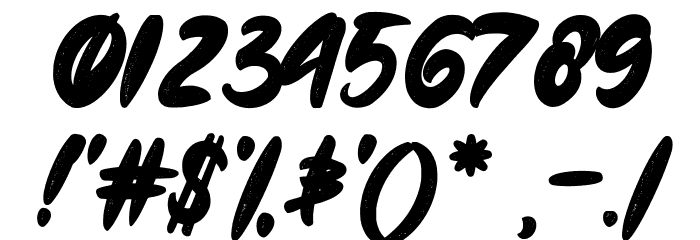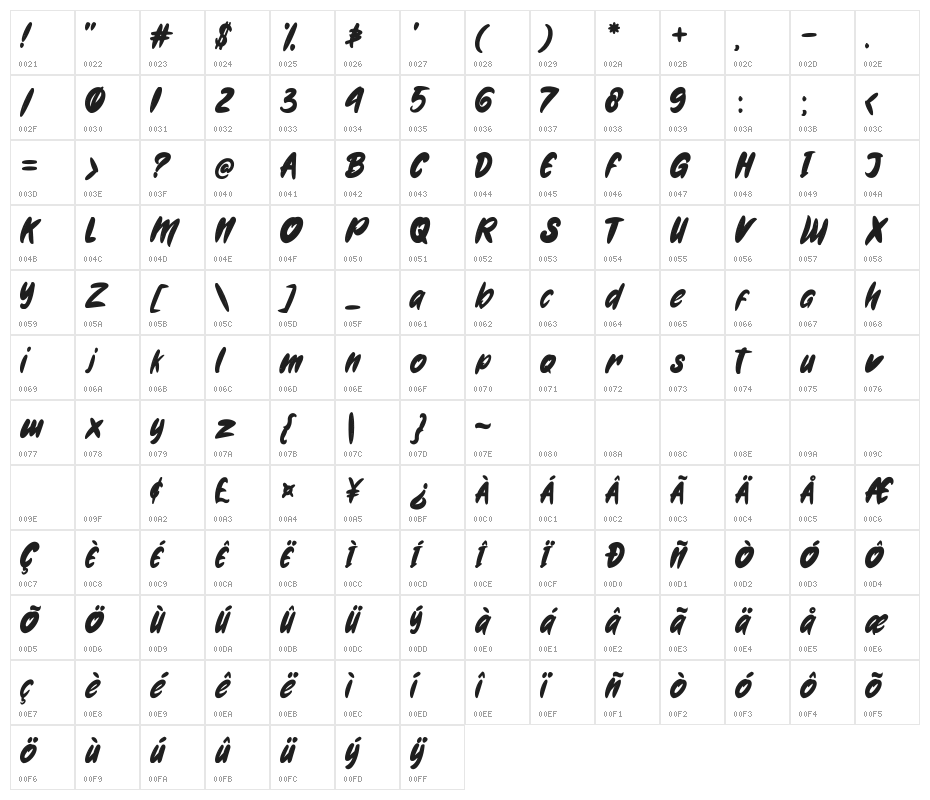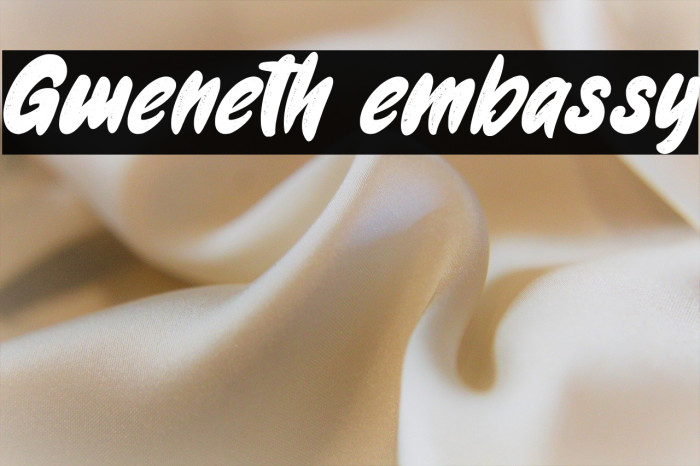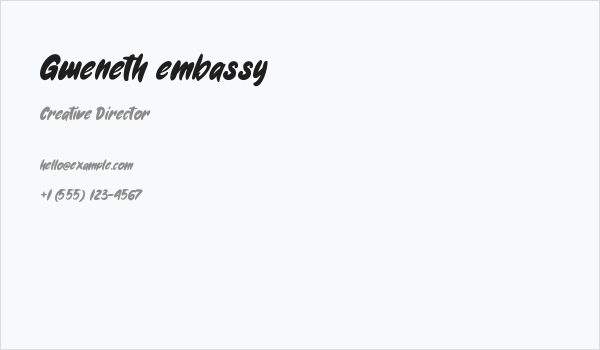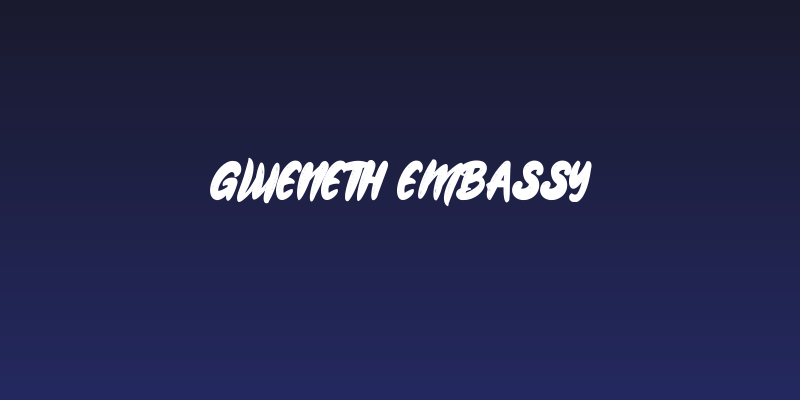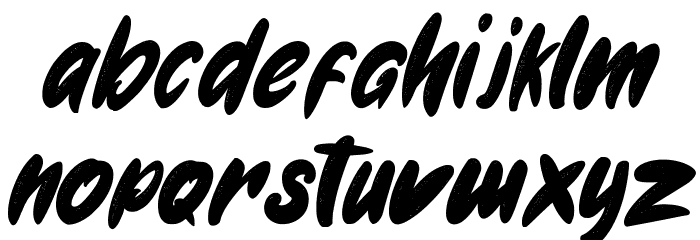
Gweneth embassy Font
Gweneth embassy Description
This font features a bold, expressive style with a handwritten appearance. The characters are thick and rounded, giving a sense of energy and movement. The strokes are consistent in weight, creating a cohesive look across both uppercase and lowercase letters. The numbers and special characters maintain the same dynamic quality, making them suitable for attention-grabbing designs. The overall impression is playful yet assertive, ideal for projects that require a strong visual impact.
| Proposed Projects | Perfect for branding, posters, social media graphics, and any project needing a bold, personal touch. |